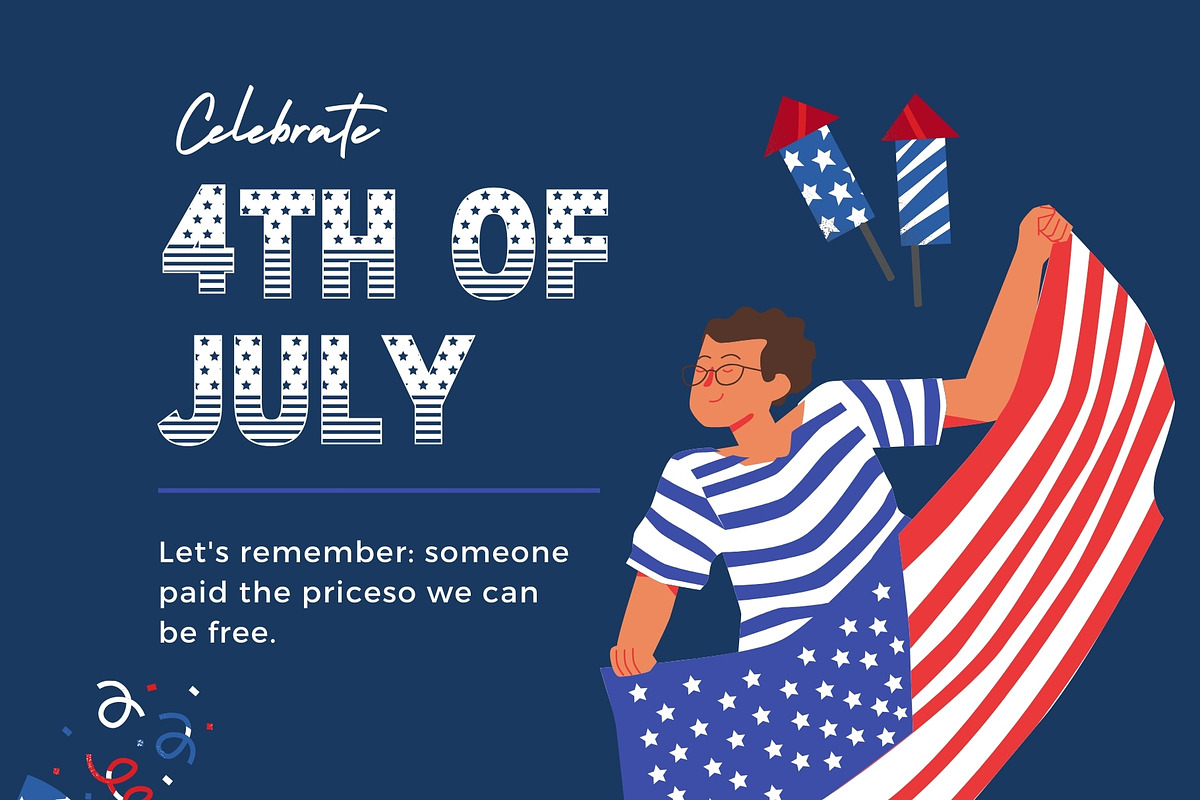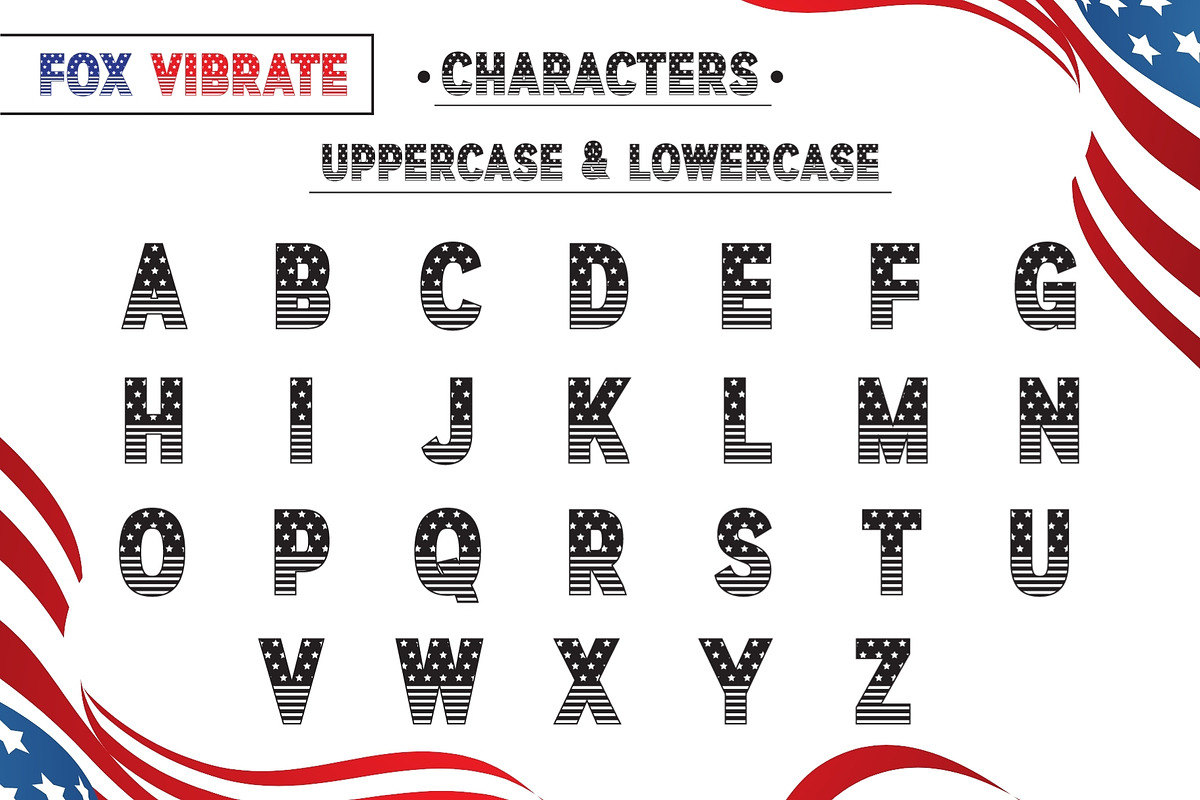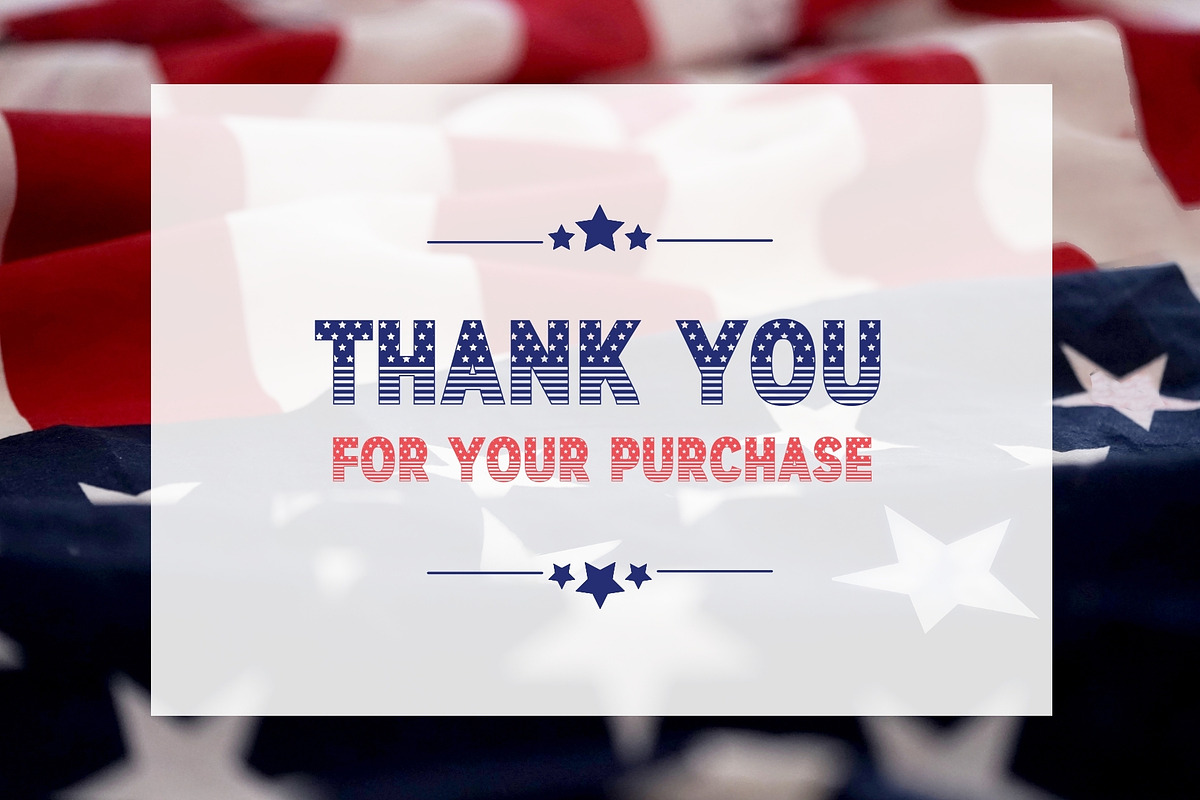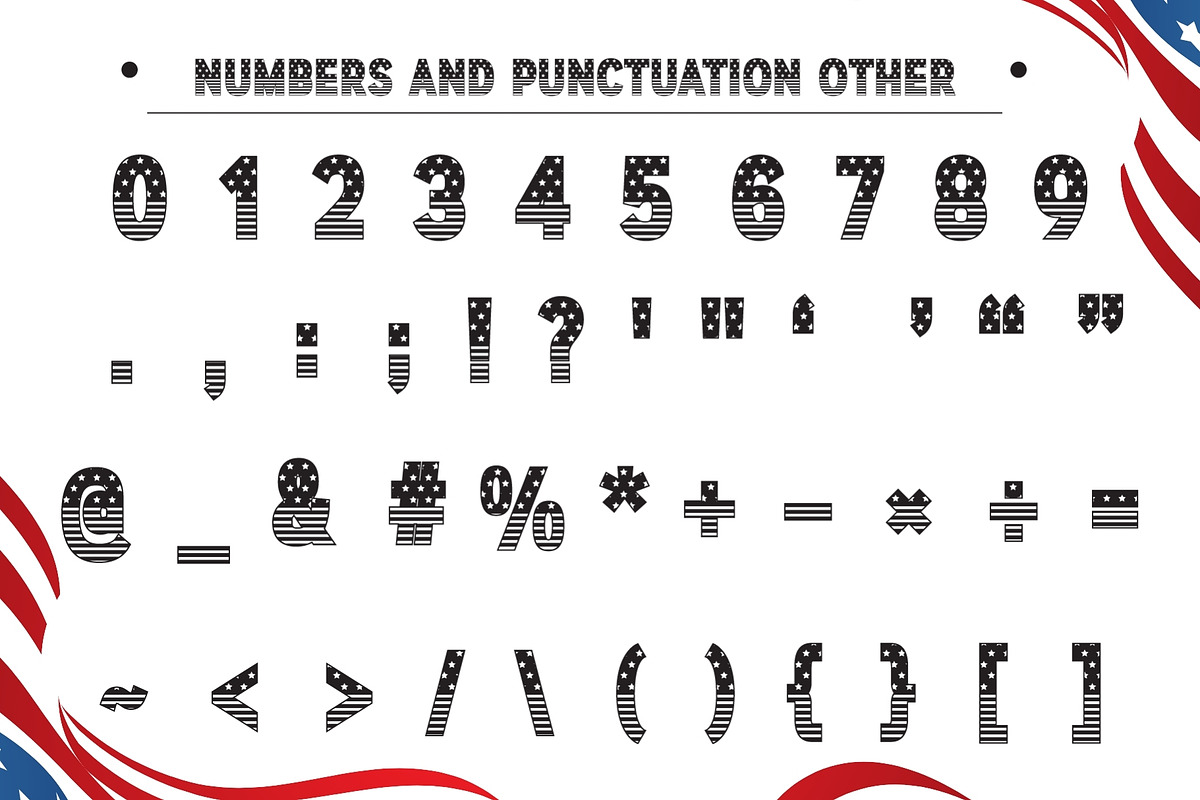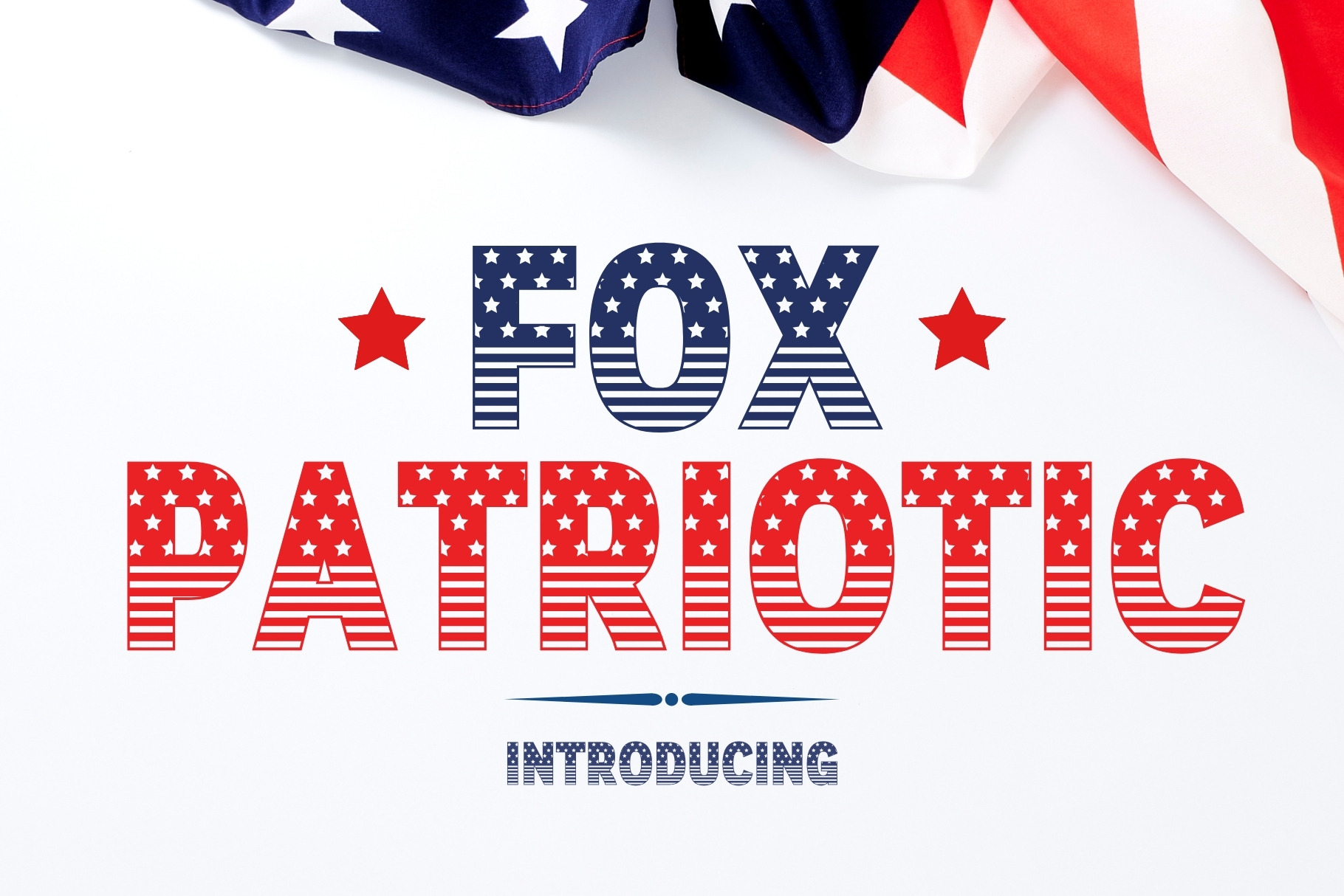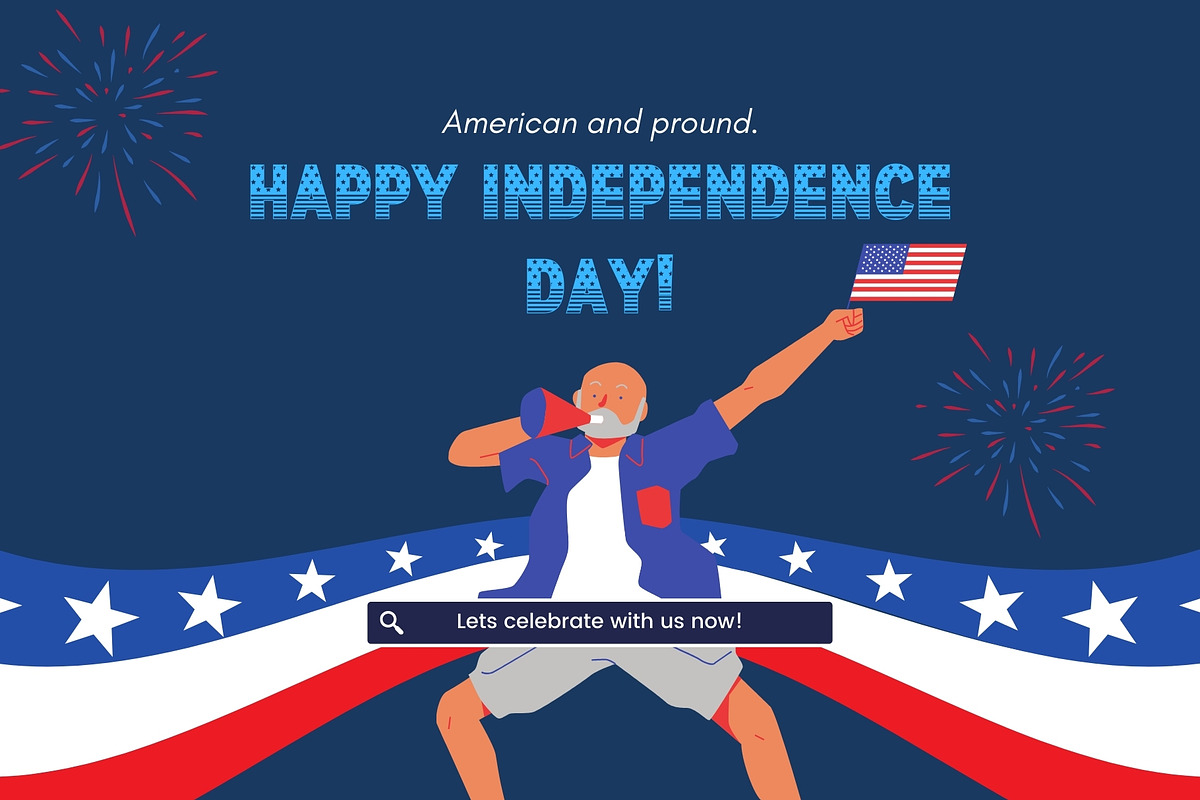
Fox Patriotic font
Fox Patriotic font features an American flag motif. This decorative font is perfect for projects that celebrate American culture, history, or events such as Independence Day, Veterans Day, or Memorial Day. It can be used to create impactful headlines, banners, or signage, infusing a sense of national pride and identity into any design.